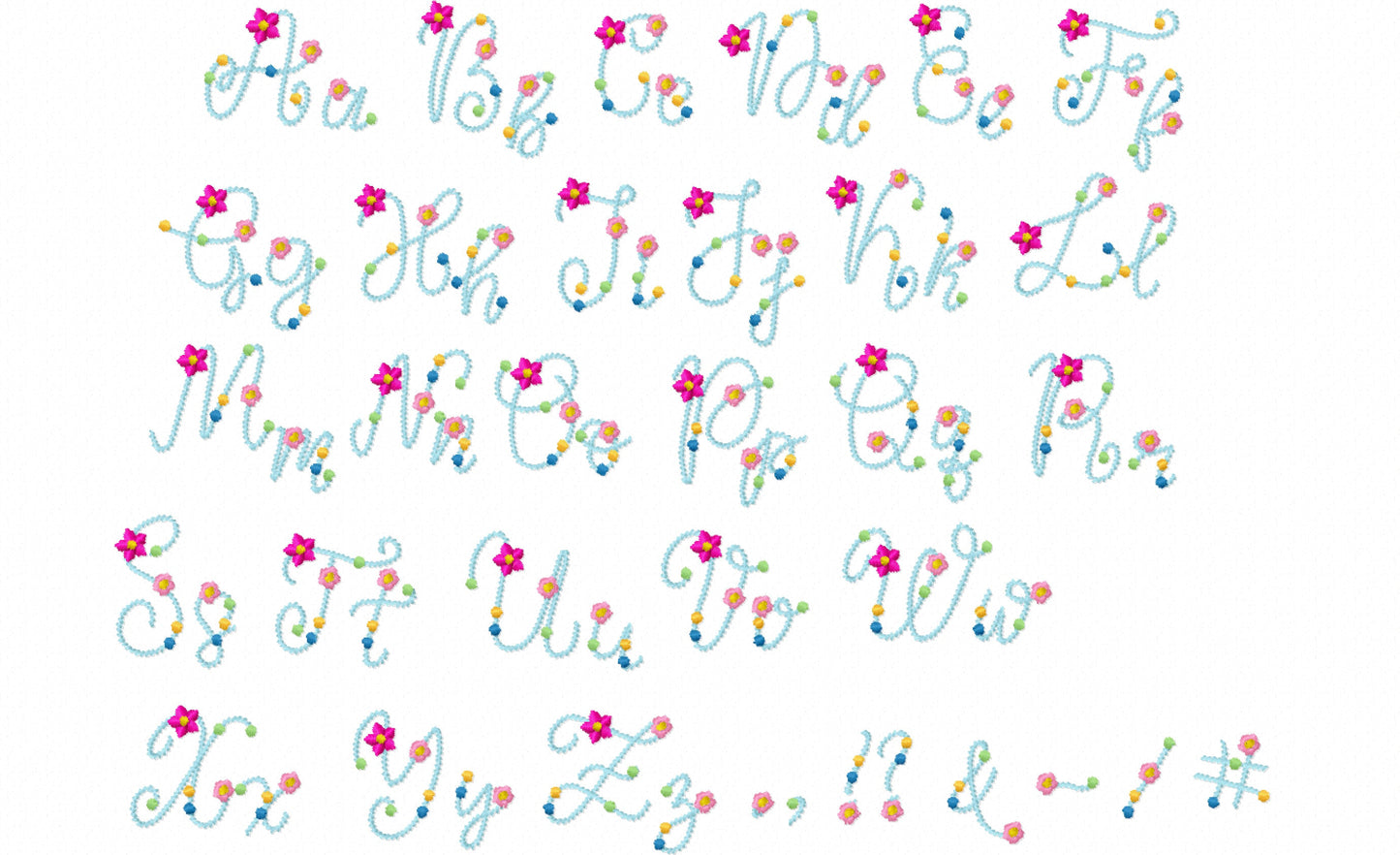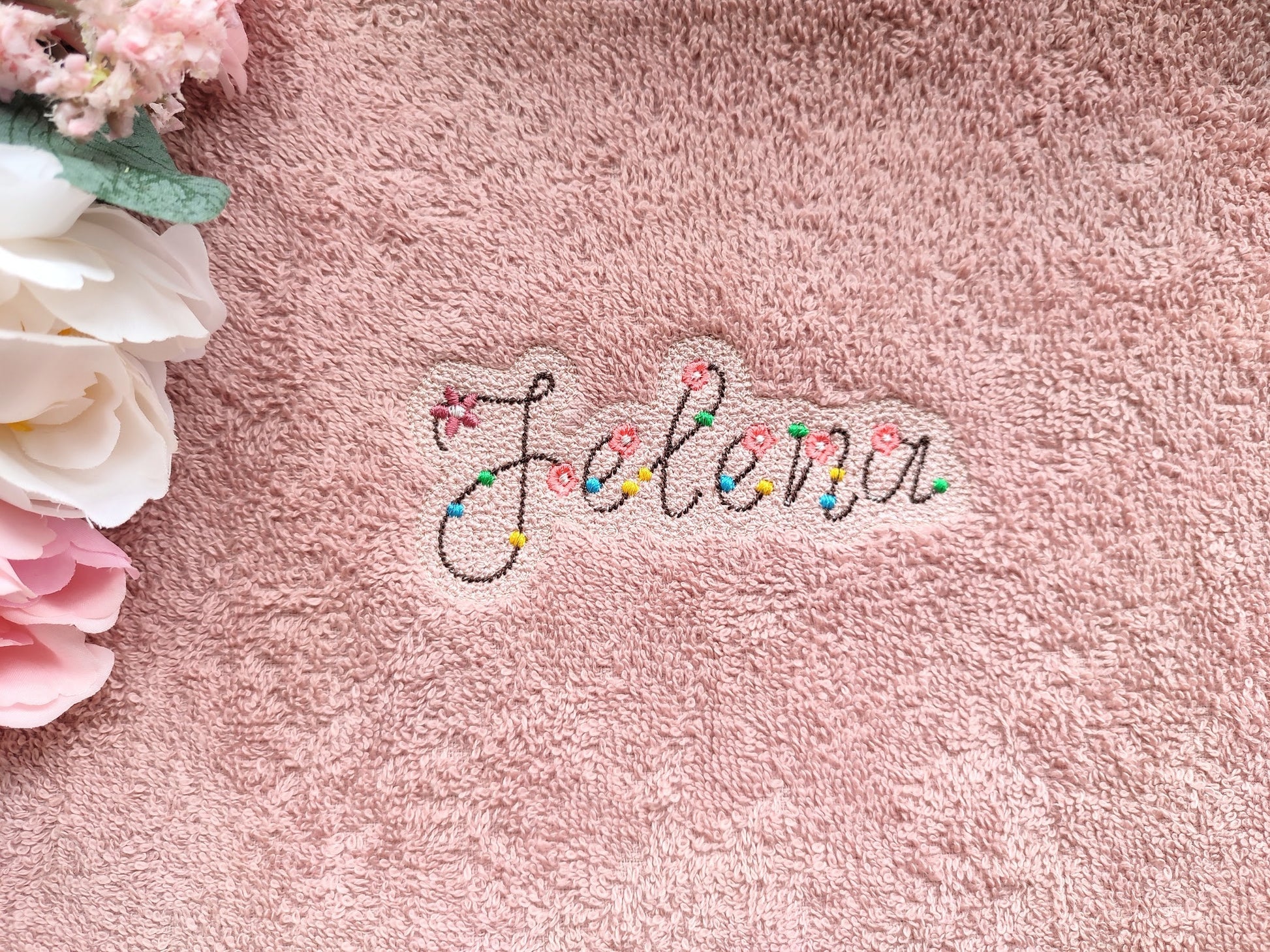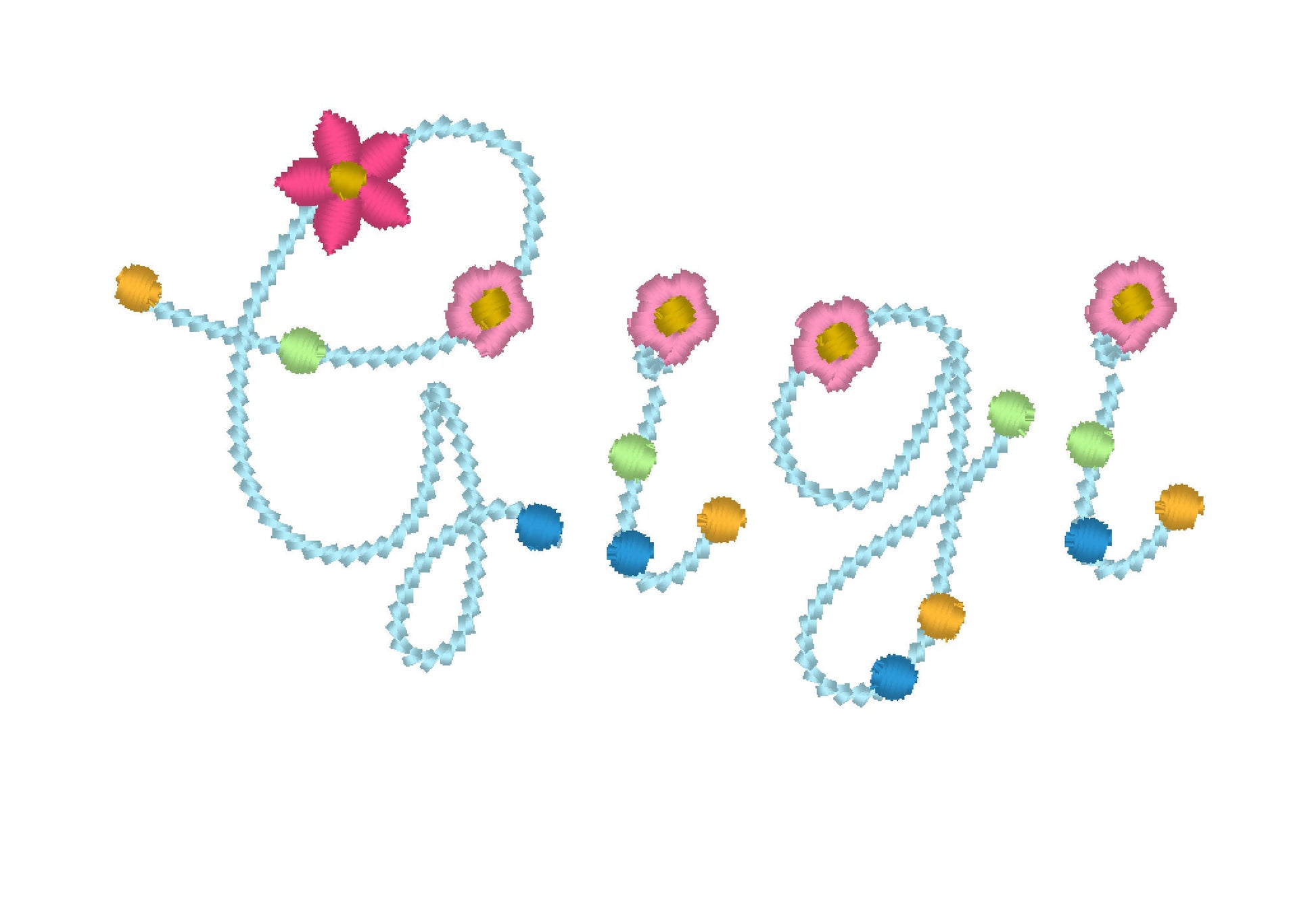
Pearl Floral Handwriting Font
Or click to open the linkA handwritten floral font in a light pearl line with little daisies. Pretty for girls' names, necklines and delicate monograms.
The letters come in five sizes: 1, 1.3, 1.5, 1.7 and 2 inches. A light pearl stitch outline with daisy details. Includes uppercase and lowercase letters A to Z and punctuation.
- Pearl floral handwritten font
- Uppercase and lowercase letters, punctuation